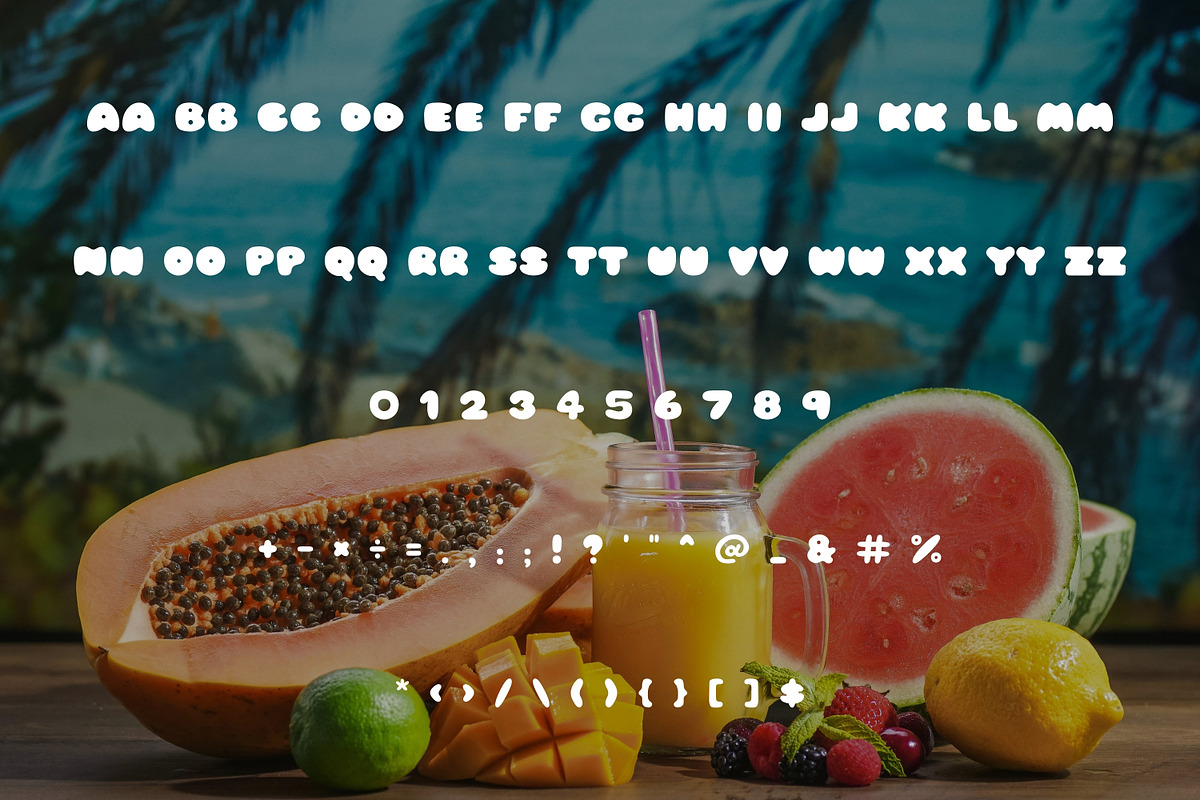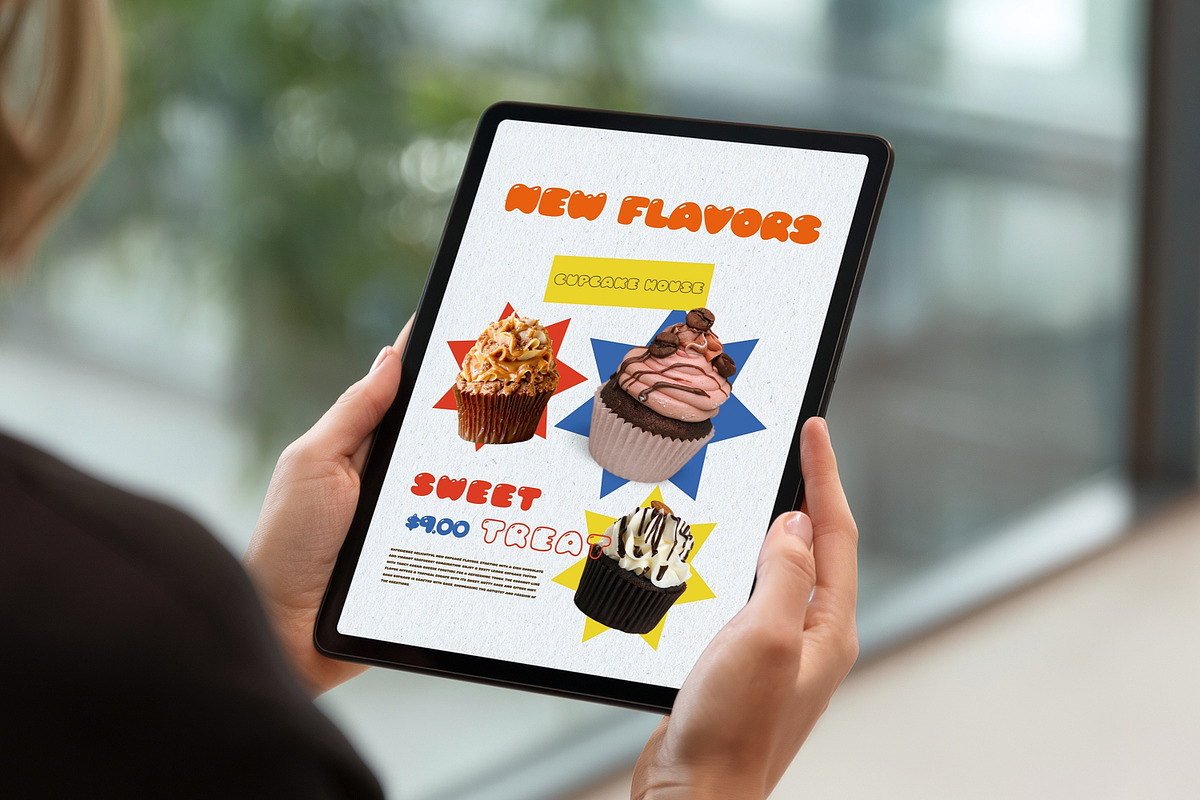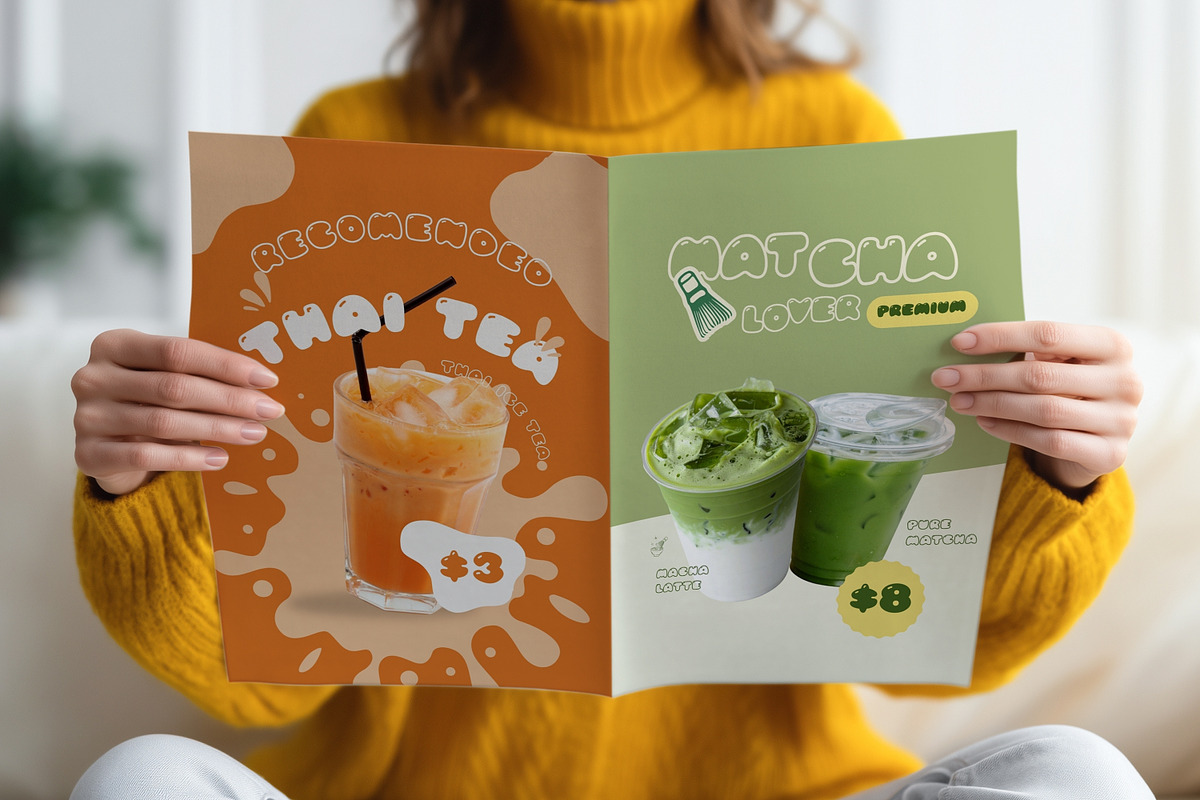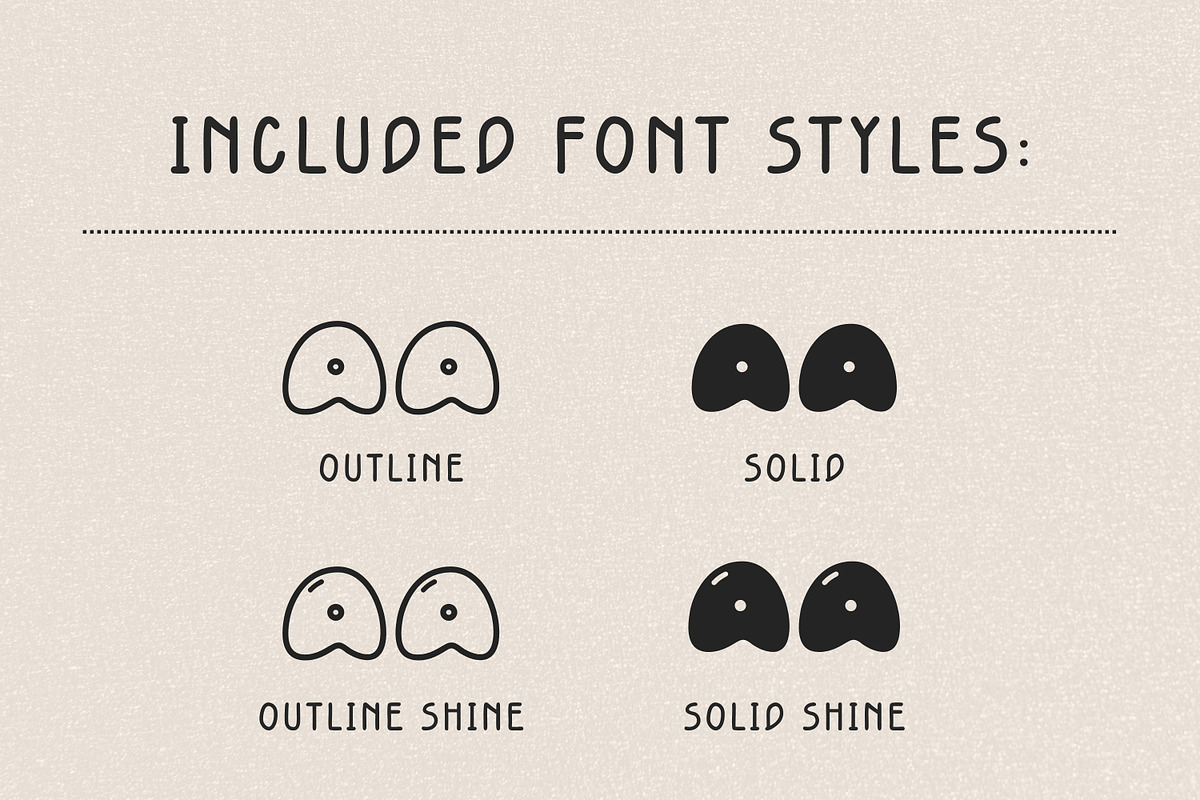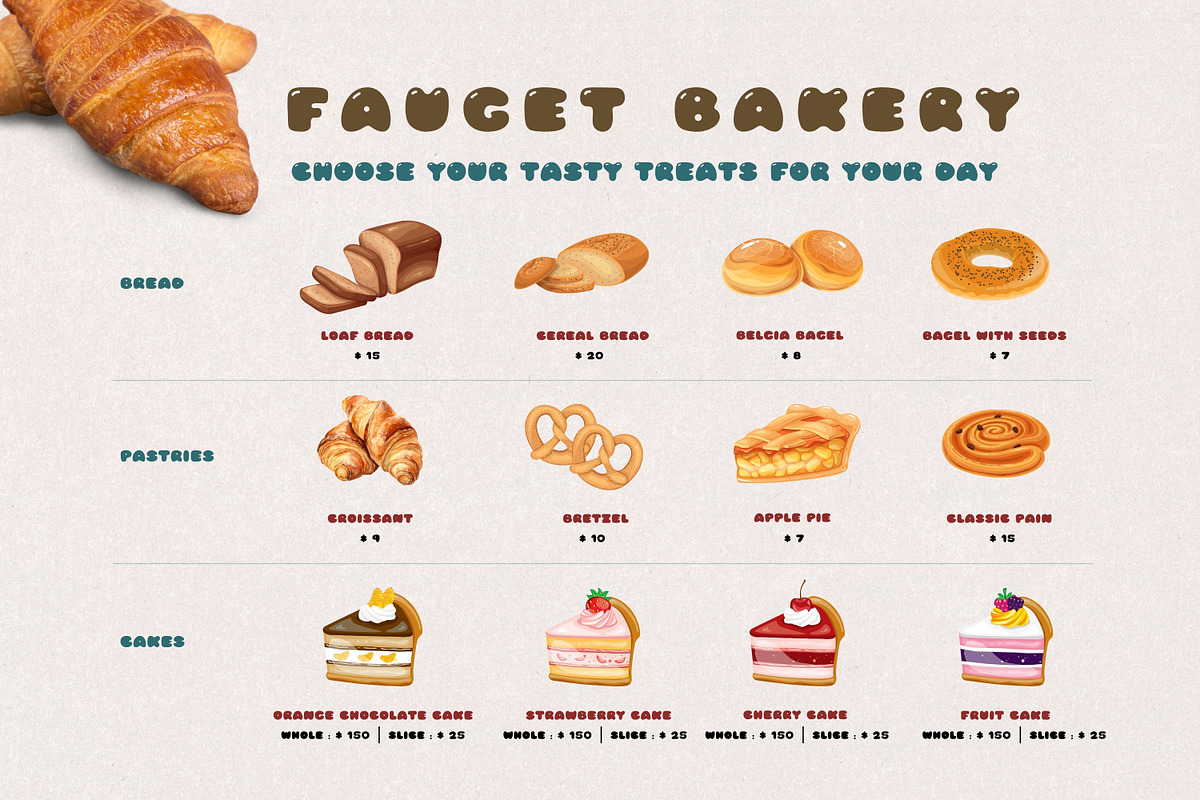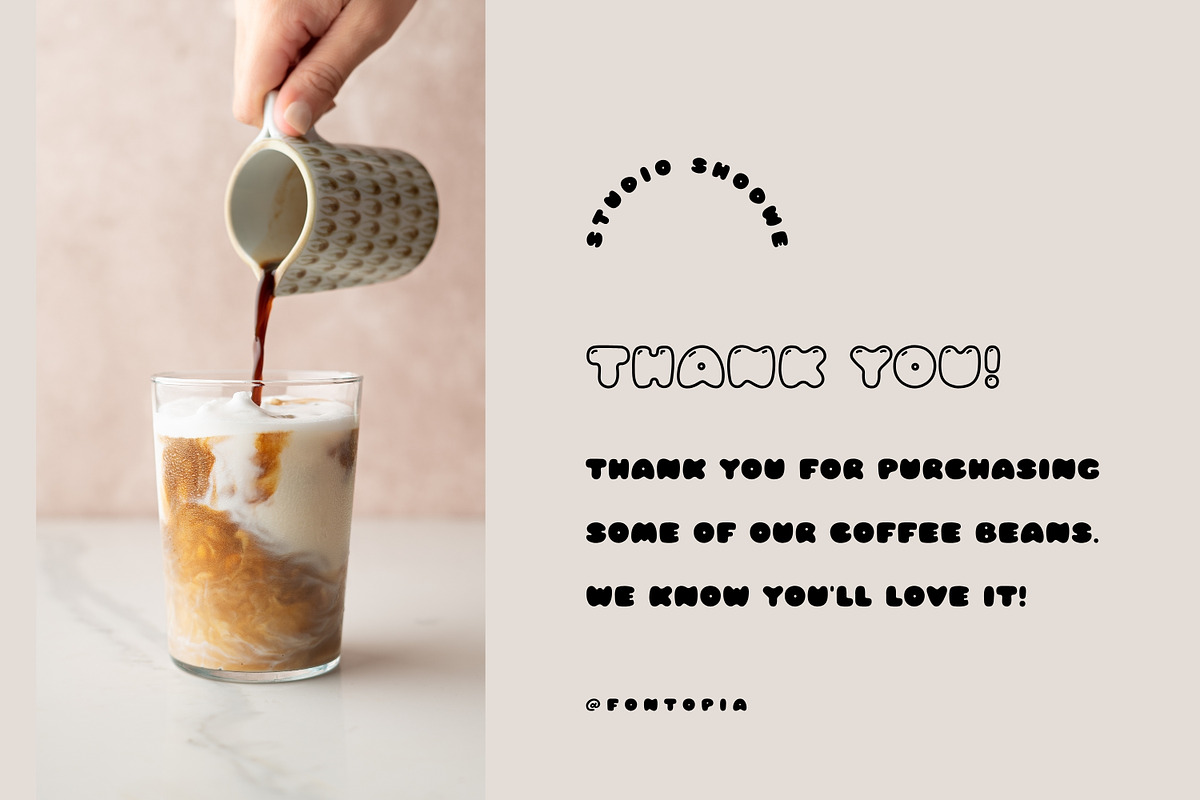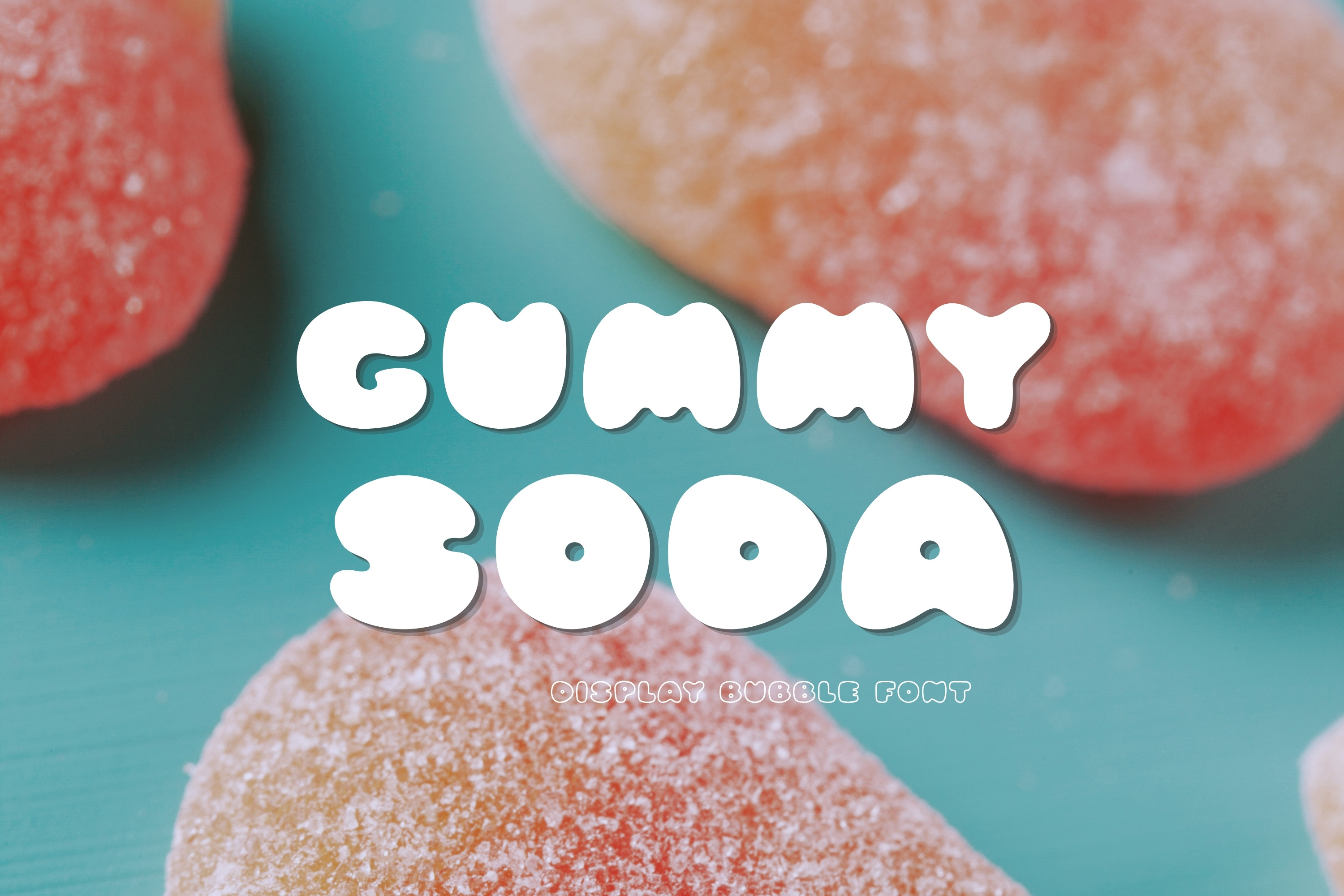
Retro Bubble Display Font-Gummy Soda
✨ Gummy Soda • Playful Display Bubble Font
Add a splash of fun, sweetness, and nostalgia to your designs with Gummy Soda, a chunky, cheerful display bubble font! Inspired by everyone’s favorite sugary treats, this font features thick, rounded letterforms that look just like puffy candies.Whether you are creating merchandise, stickers, or digital designs, Gummy Soda is perfect for making your text pop with personality!